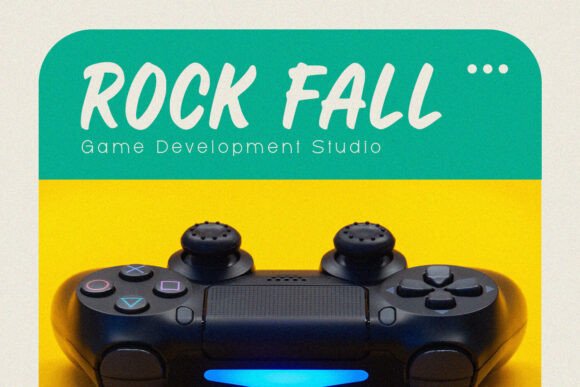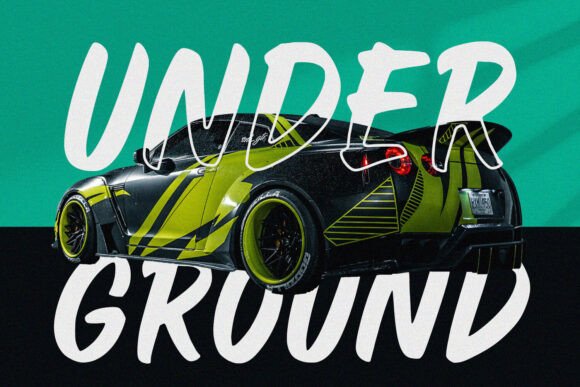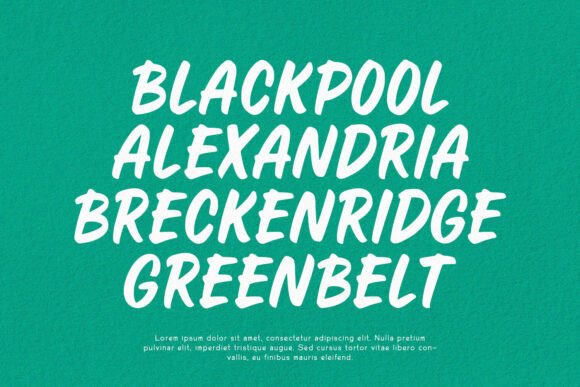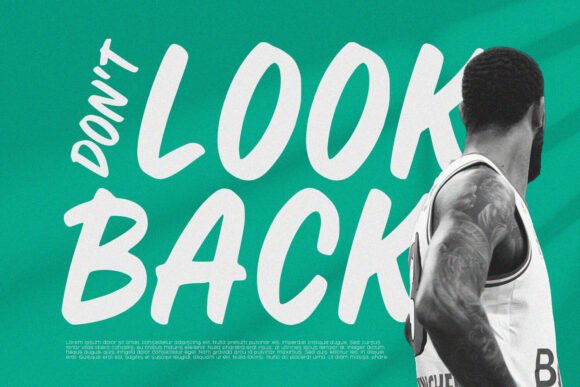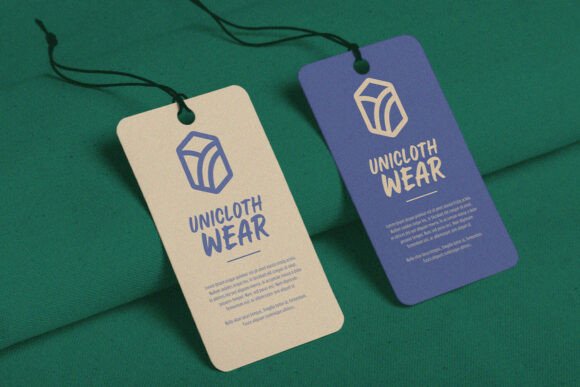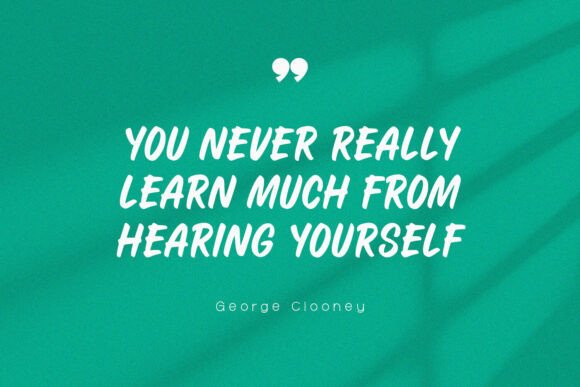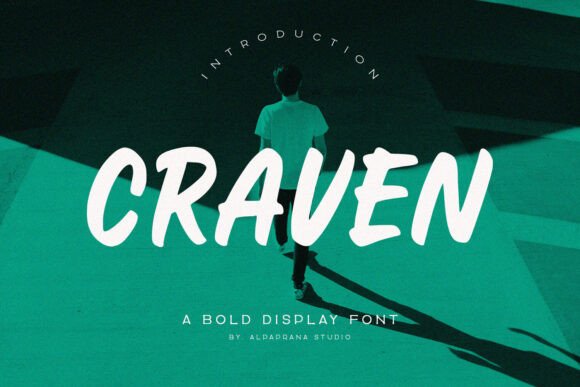
Craven Font: Elevate Your Designs with Elegance and Modernity
In the world of typography, fonts play a crucial role in conveying the tone and aesthetic of a design project. For designers and crafters seeking a font that exudes elegance and modernity, Craven Font is an excellent choice. This display font is specifically designed to add a touch of sophistication to various design projects, including magazines, packaging, posters, shopping bags, t-shirts, book covers, photography, special events, and more.
The Essence of Craven Font
Craven Font is a display font that boasts an elegant and modern feel, making it perfect for designers who want to create visually stunning projects. Its sleek lines, precise curves, and balanced structure make it an ideal choice for headlines, titles, and short texts. The font’s unique characteristics allow it to stand out from other fonts, giving designers the opportunity to create distinctive and memorable designs.
Key Features of Craven Font
• Elegant and Modern Design: Craven Font features a sleek and contemporary design that will elevate your projects with a touch of sophistication.
• Versatile: This font is perfect for various design projects, including magazines, packaging, posters, shopping bags, t-shirts, book covers, photography, special events, and more.
• Easy to Read: Despite its elegant design, Craven Font remains easy to read, making it suitable for short texts and headlines.
• Unique Characteristics: The font’s distinctive features allow it to stand out from other fonts, giving designers the opportunity to create memorable designs.
Use Cases for Craven Font
Craven Font is a versatile font that can be used in a wide range of design projects. Here are some examples of how you can use this font to elevate your designs:
• Magazines and Editorials: Use Craven Font as a headline font to add a touch of elegance to your magazine or editorial design.
• Packaging Design: Craven Font is perfect for packaging design, adding a sophisticated touch to product labels and packaging materials.
• Poster Design: Create eye-catching posters with Craven Font, perfect for advertising, events, or promotional materials.
• Fashion and Apparel: Use Craven Font on t-shirts, hoodies, or other apparel to add a modern and stylish touch.
• Book Covers: Craven Font is an excellent choice for book covers, adding a touch of sophistication and elegance to your design.
• Photography: Use Craven Font to add a touch of elegance to your photography projects, such as photo albums or portfolios.
• Special Events: Craven Font is perfect for designing materials for special events, such as weddings, galas, or corporate events.
Tips for Using Craven Font
To get the most out of Craven Font, here are some tips to keep in mind:
• Use it as a Headline Font: Craven Font is designed to be used as a headline font, so use it to grab attention and add emphasis to your designs.
• Pair it with Other Fonts: Experiment with pairing Craven Font with other fonts to create a unique and visually appealing design.
• Adjust Font Size and Color: Play with font size and color to create visual hierarchy and add depth to your designs.
Craven Font is a versatile and elegant display font that is perfect for designers and crafters seeking to add a touch of sophistication to their design projects. With its modern feel, easy readability, and unique characteristics, Craven Font is an excellent choice for a wide range of design projects. By following the tips outlined above, you can get the most out of Craven Font and create stunning designs that elevate your brand or project.